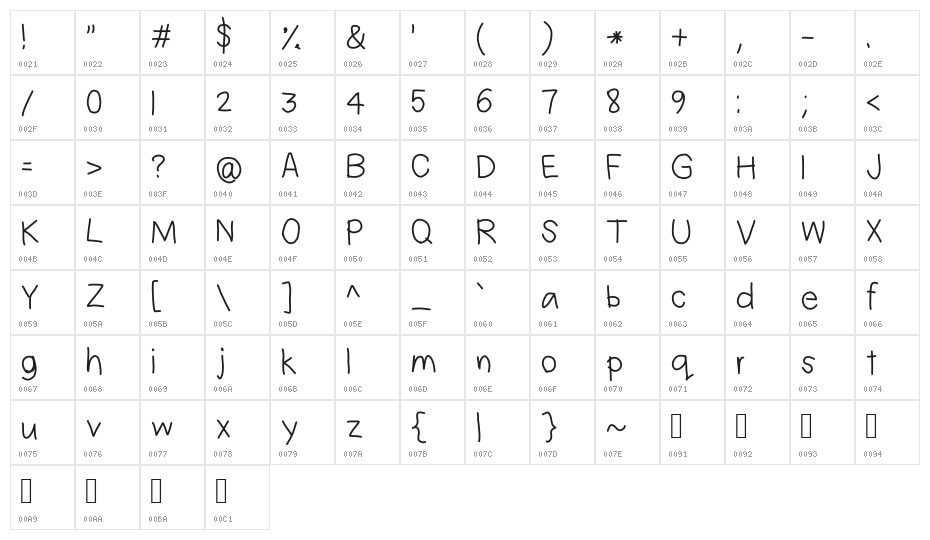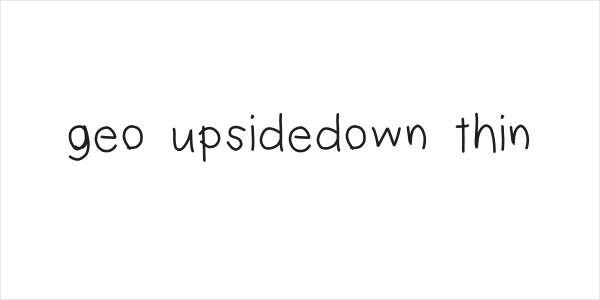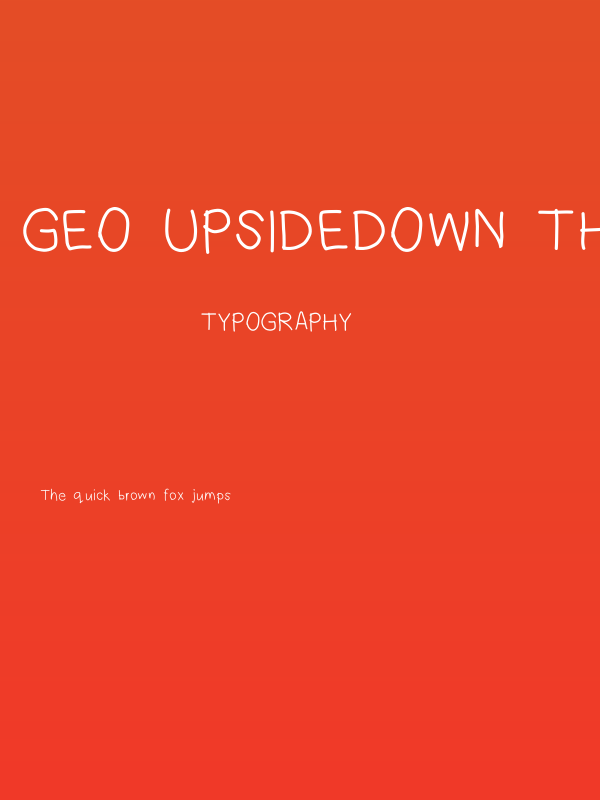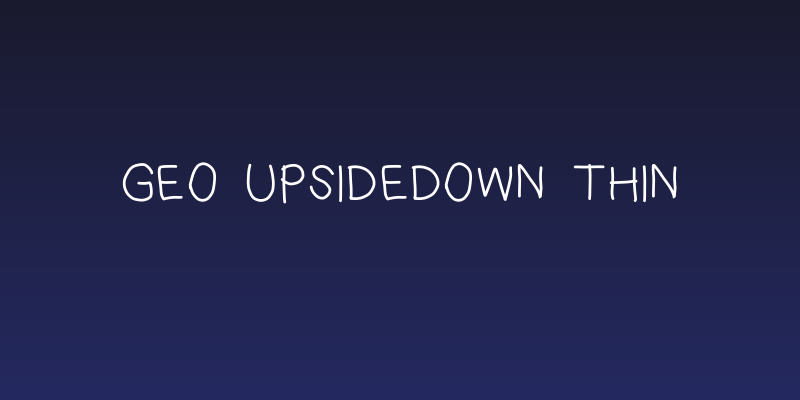
geo upsidedown thin Font
geo upsidedown thin Description
This font features a playful and casual handwritten style, characterized by its thin strokes and slightly irregular letterforms. The uppercase and lowercase letters maintain a consistent flow, with rounded edges and a friendly appearance. The numerals are clear and easy to read, matching the overall informal aesthetic. Special characters are included, complementing the font's whimsical nature. This font is ideal for projects that require a personal touch, such as greeting cards, children's books, or creative branding. Its simplicity and charm make it versatile for various design needs.
GEO-UPSIDEDOWN-THIN UPPERCASE
GEO-UPSIDEDOWN-THIN LOWERCASE
GEO-UPSIDEDOWN-THIN OTHER CHARS
| Use Case | Headlines, Logos, Informal text |
| Proposed Projects | Greeting cards, children's books, creative branding, personal blogs, and informal invitations. |